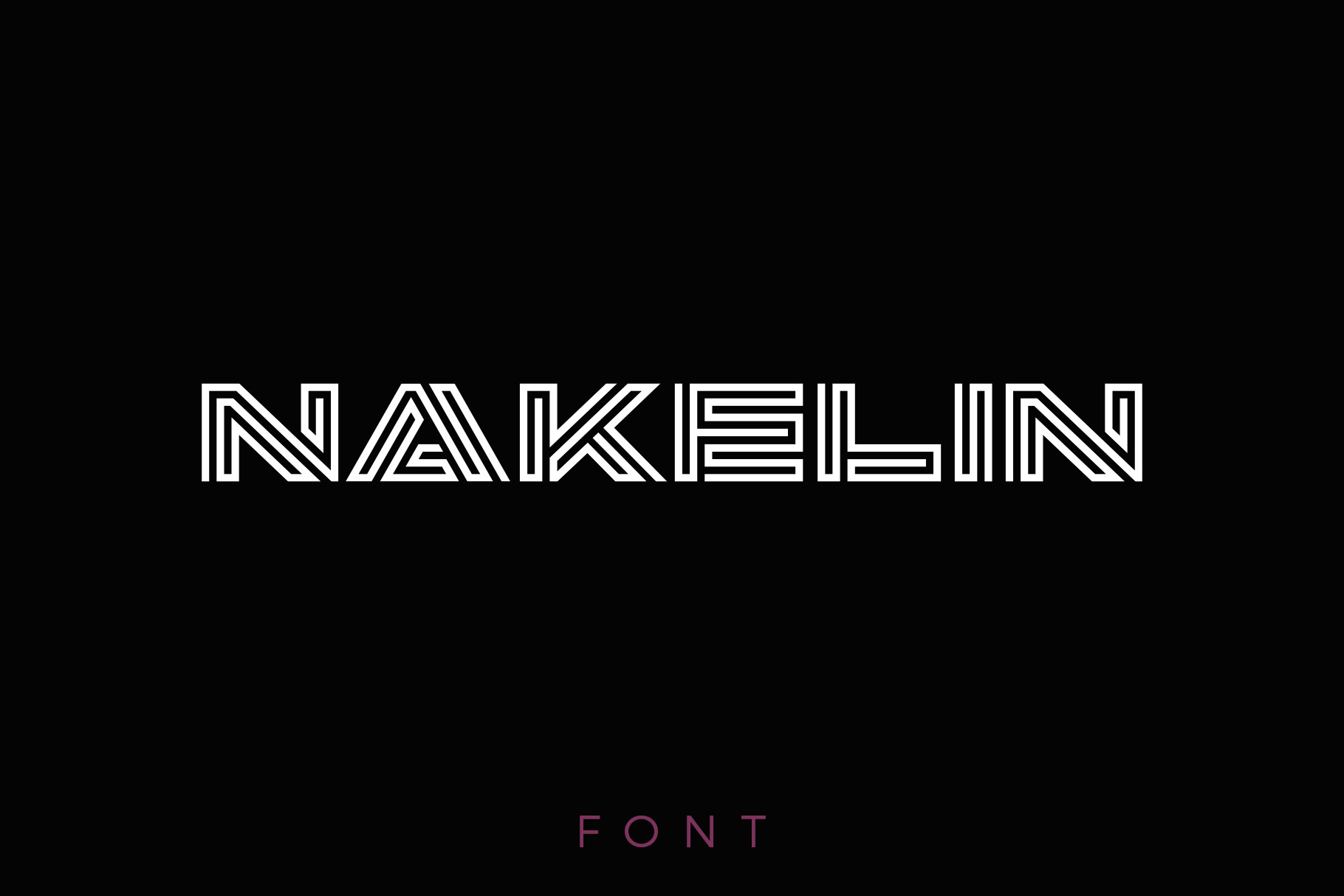
Nakelin Font
NAKELIN is monogram font linear style can be used as logo design and branding, titles & headers, posters & banners in such areas as fashion, high-tech, internet & computers, business innovations etc.